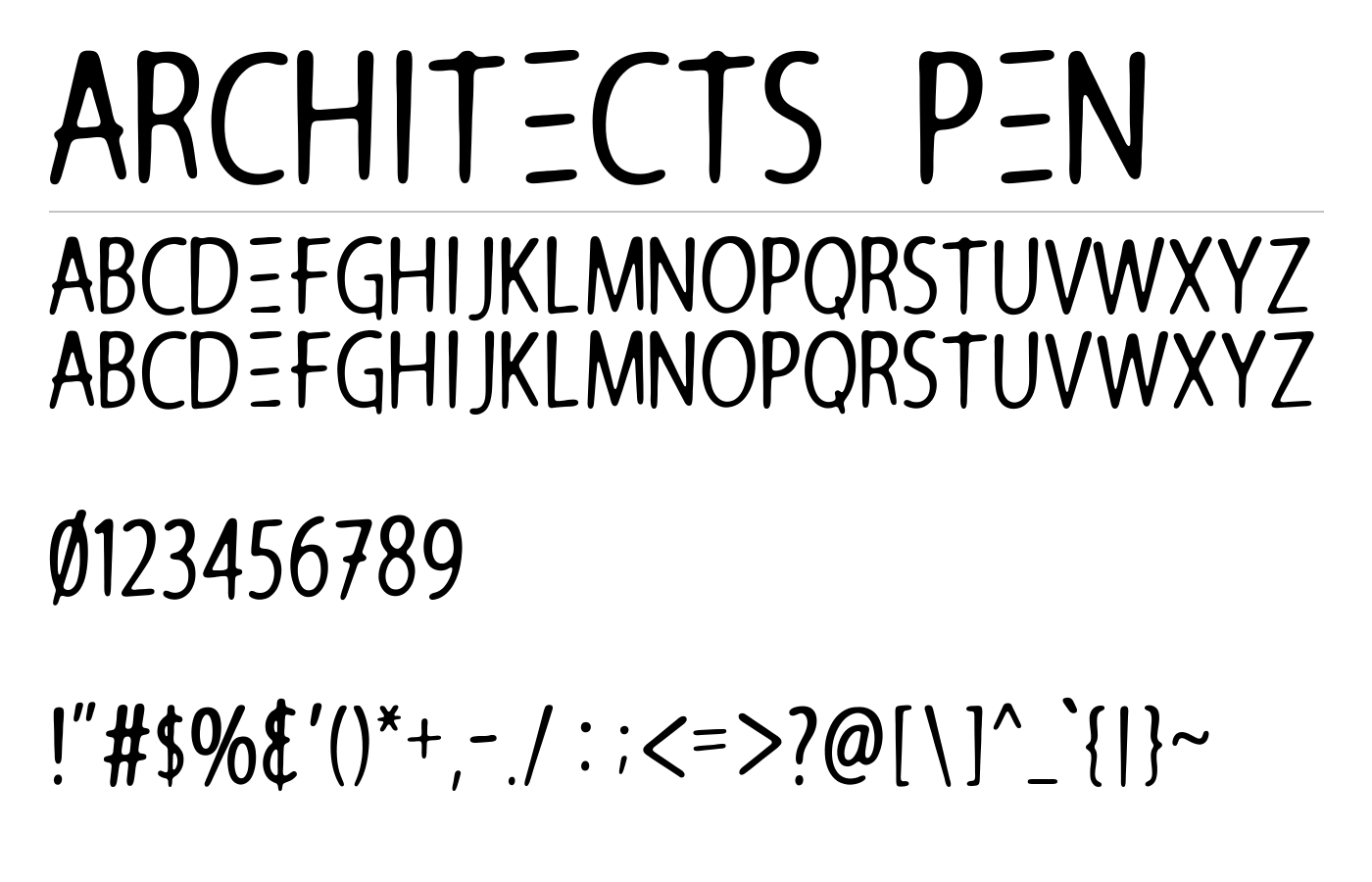
Architects Pen Font is a playful and informal sans serif with a hand-drawn feel, featuring tall, narrow letterforms and slightly irregular strokes that mimic handwriting with a fine pen. Its unique details, such as the double horizontal lines in characters like E and the quirky shapes of letters and numbers, give it a friendly and creative personality ideal for artistic, casual, or approachable branding and signage. This font works best in headlines, posters, and creative projects where a personal, handcrafted touch is desired.
Architects Pen Font
About Architects Pen Font